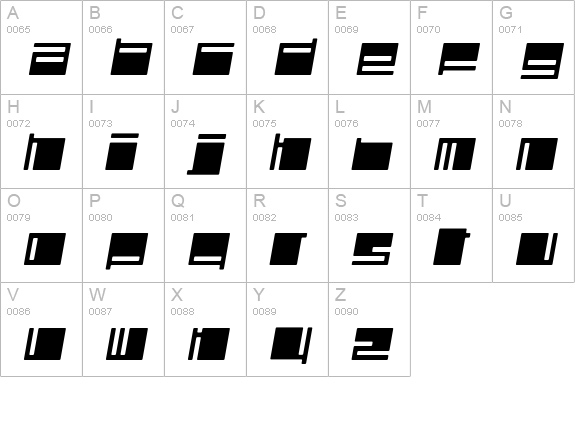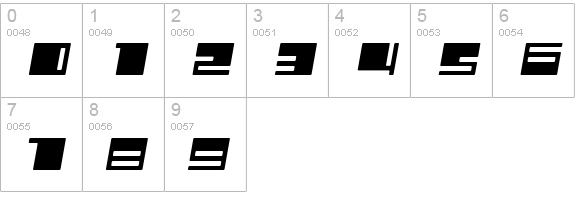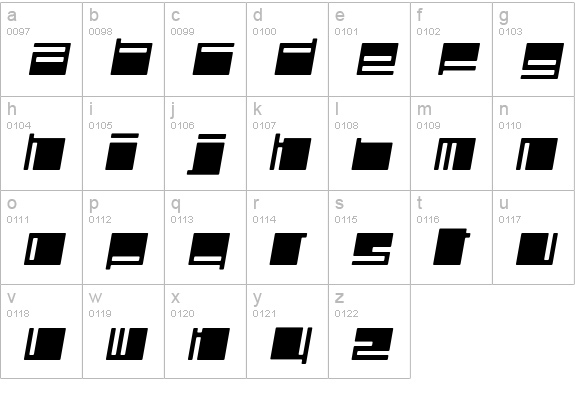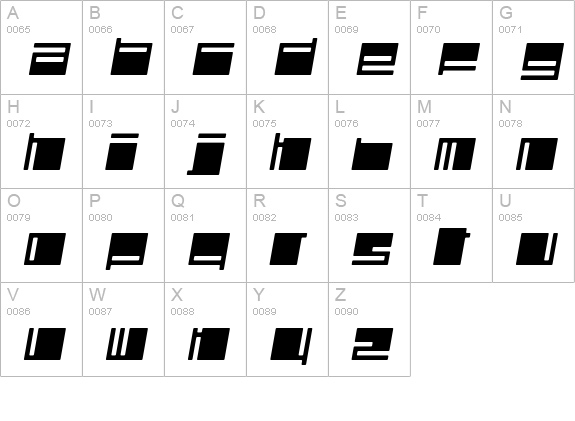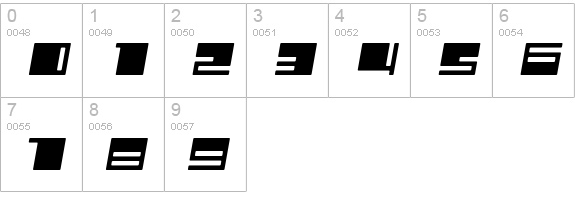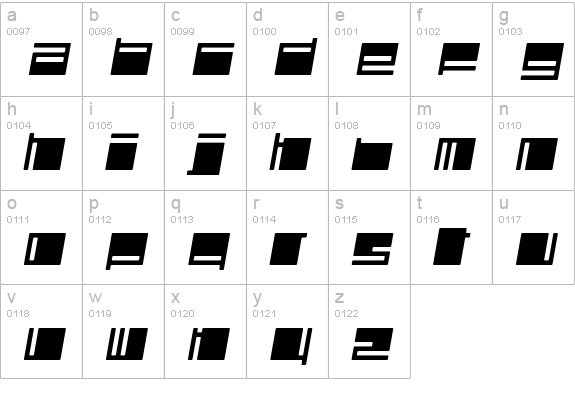
Polydiscous-Italic is a distinctive, italic variant in the Polydiscous typeface family \xE2\x80\x94 well suited to design and typography projects.
Polydiscous-Italic is a stunning and elegant font that exudes sophistication and style. Its sleek and modern design makes it perfect for a variety of projects, from branding to editorial design. The italicized version adds a touch of flair and personality to any text, making it stand out beautifully. What's even better is that Polydiscous-Italic is available for free download at FontsMarket.com. This means you can add this gorgeous font to your collection without any cost, making it a valuable resource for all your design needs. Don't miss out on the opportunity to enhance your projects with the beauty of Polydiscous-Italic!